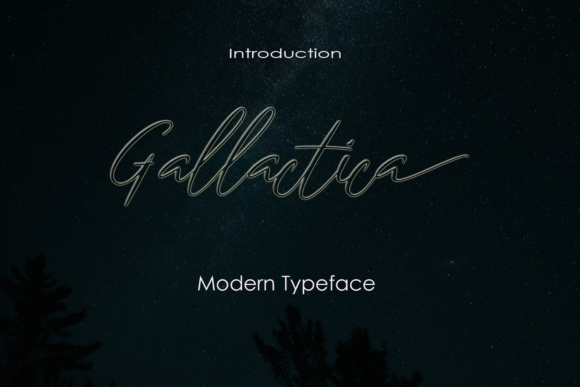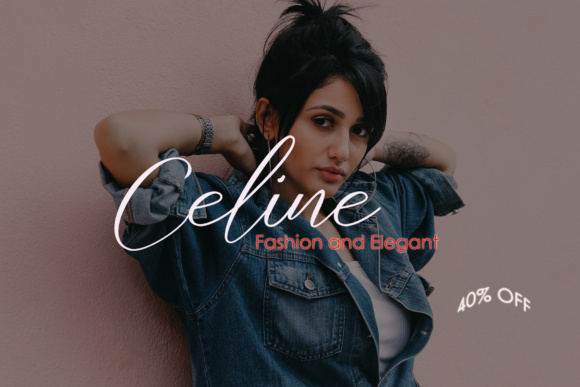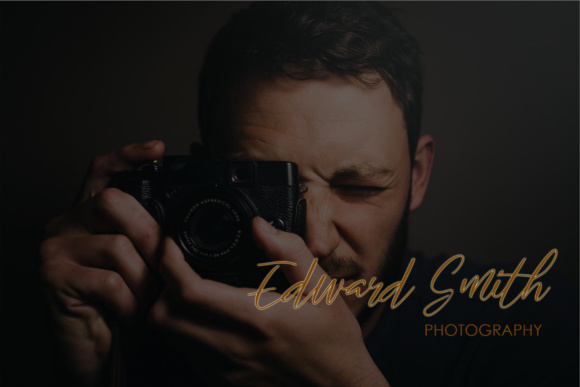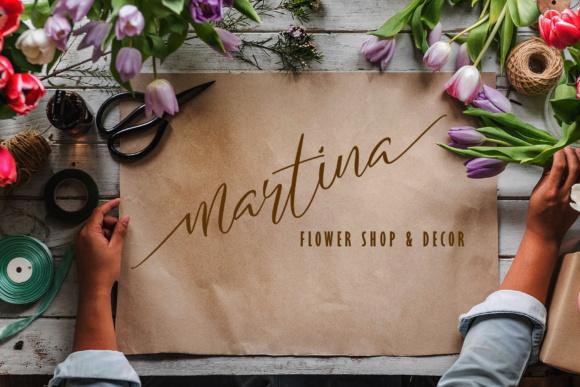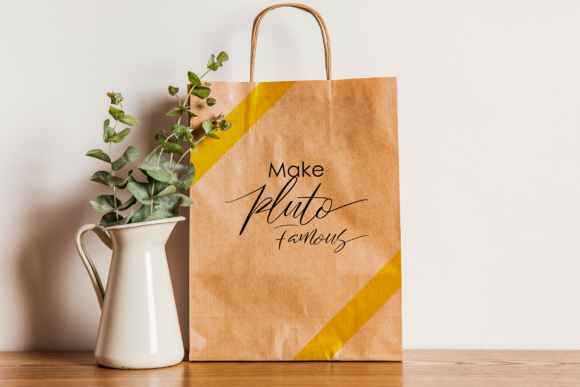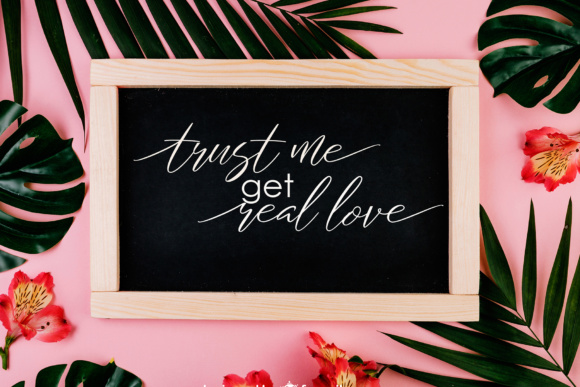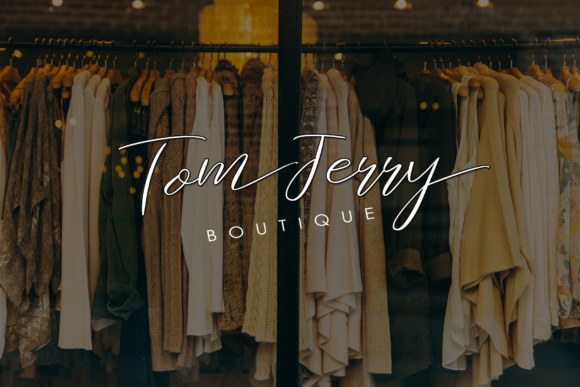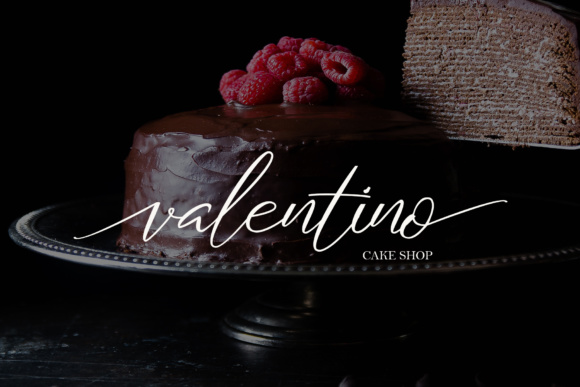
Gallactica Font
About Gallactica Font
Gallactica is a stunning modern typeface, ideal for use in a wide range of creative projects. This signature script exudes confidence and classiness, and can give all of your designs a facelift!